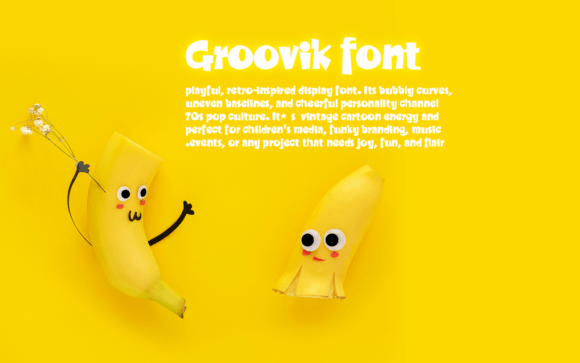
Introduction to Groovik Font Font
Fonts play a crucial role in design, and the Groovik Font font is a typeface that brings both character and versatility to any project. Whether you’re working on a branding project, a website, or a print design, the Groovik Font font offers a unique style that can elevate your work.
Get groovy with Groovik, a font that dances, smiles, and never takes itself too seriously.
Packed with retro funk and cheerful charm, itβs made for playful branding and happy vibes Perfect for kids, creatives, and cool brands with personality.
Key Features of Groovik Font Font
Why Choose Groovik Font Font?
The Groovik Font font is more than just a typeface β it’s a design tool that helps you communicate your message with style and clarity. Its unique character set and versatile design make it suitable for a wide range of applications, from elegant invitations to bold headlines.
With its carefully crafted letterforms and balanced proportions, the Groovik Font font ensures readability and visual appeal across all mediums.
What makes Groovik Font font special?
The Groovik Font font stands out with its unique design, exceptional readability, and versatility across various design applications.